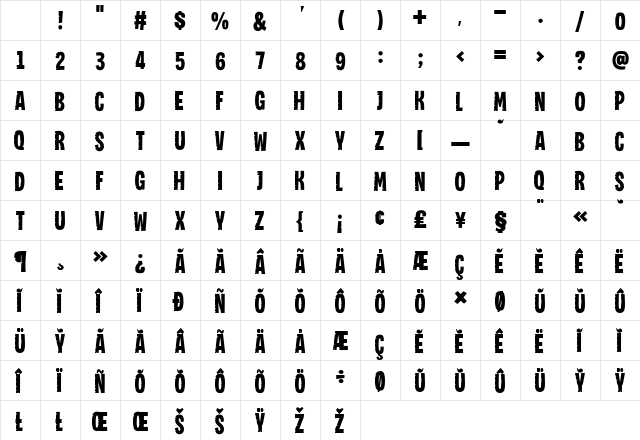
Complete Industrial Voltage Regular glyph index. Displaying only characters natively supported by Industrial Voltage Regular font.
Industrial Voltage is a composed and adaptable typeface that performs quietly and consistently across a wide range of design contexts.